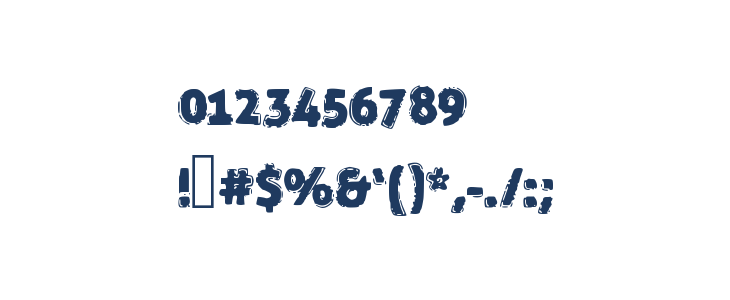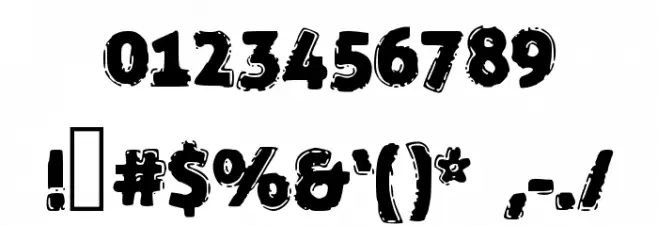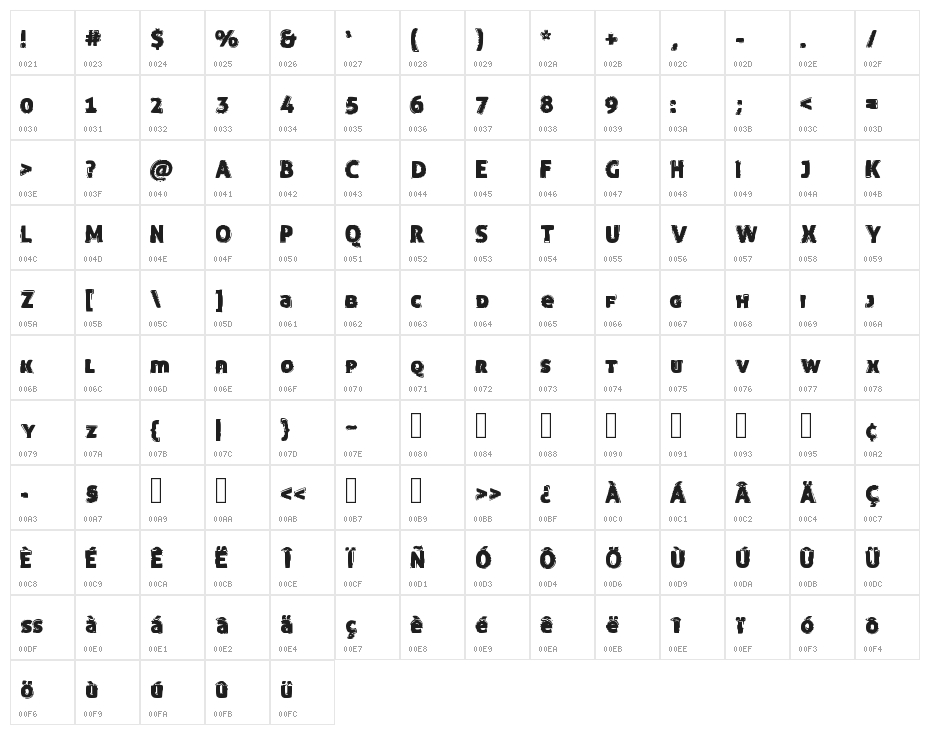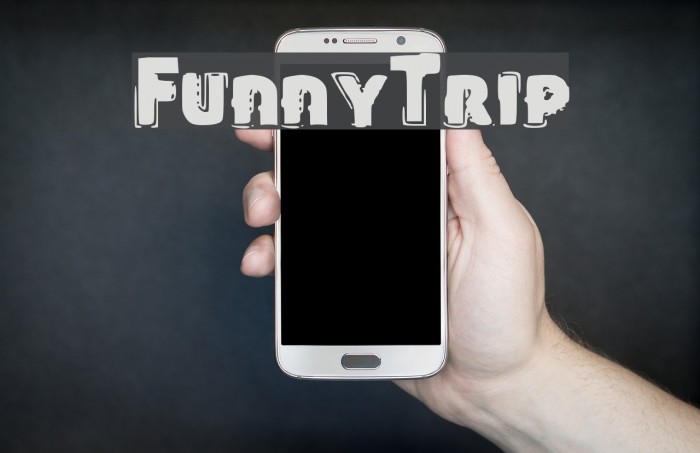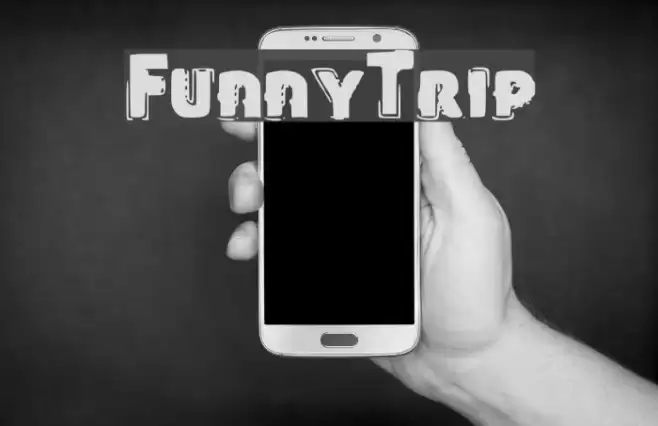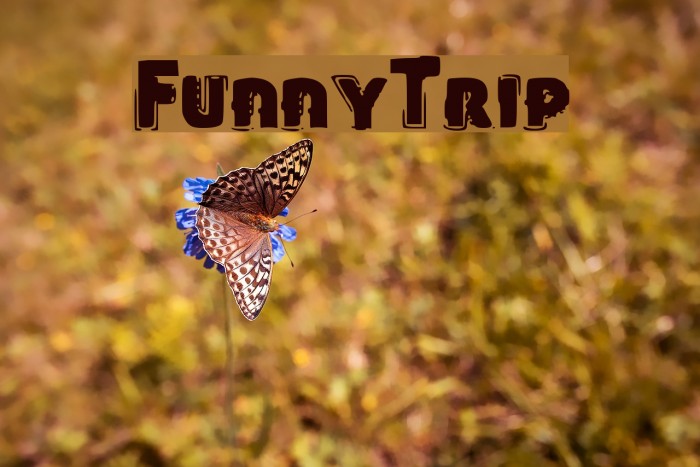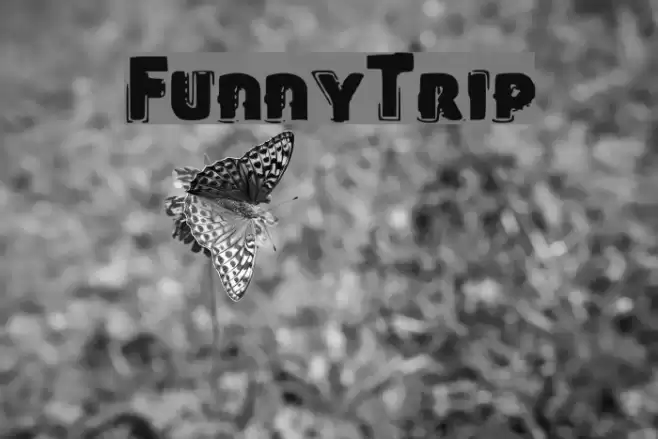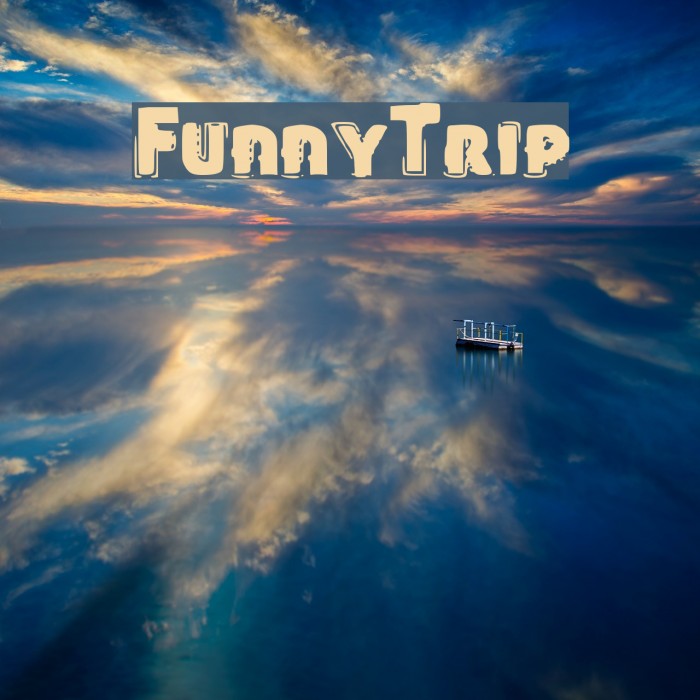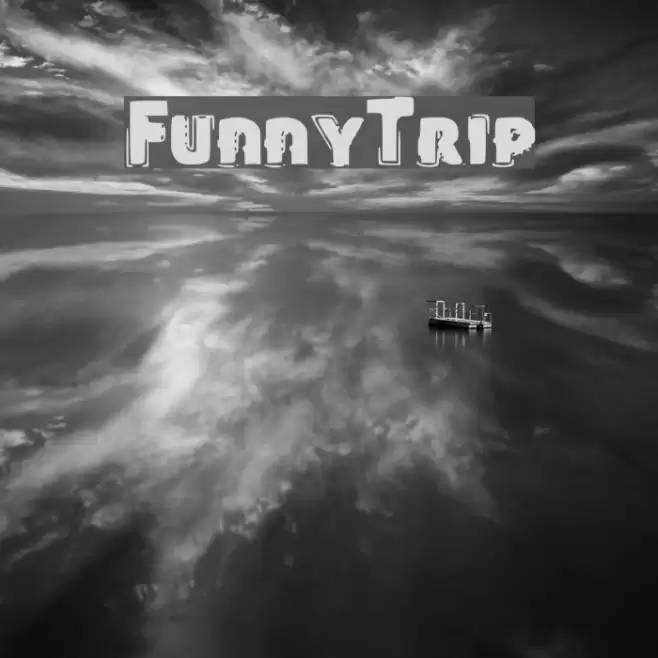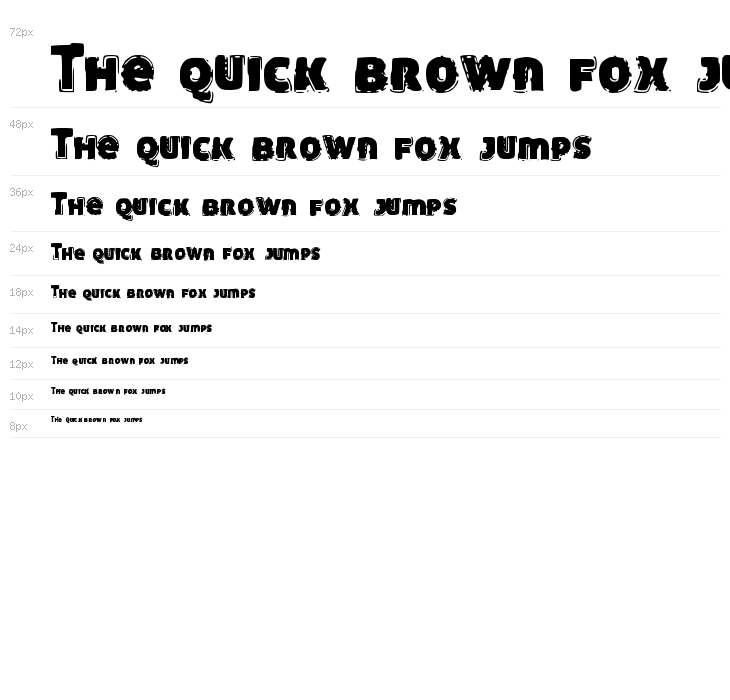
FunnyTrip Font
FunnyTrip Description
This font features a playful and distressed style, with each character appearing as if it has been roughly cut out or eroded. The edges are irregular and jagged, giving it a dynamic and energetic appearance. The uppercase and lowercase letters maintain a consistent height, while the numbers and special characters follow the same distressed aesthetic. The overall look is bold and eye-catching, making it suitable for designs that require a fun and informal touch. The font's unique style can add a sense of movement and excitement to any project.
| Proposed Projects | Ideal for children's book covers, party invitations, comic strips, and playful branding. |